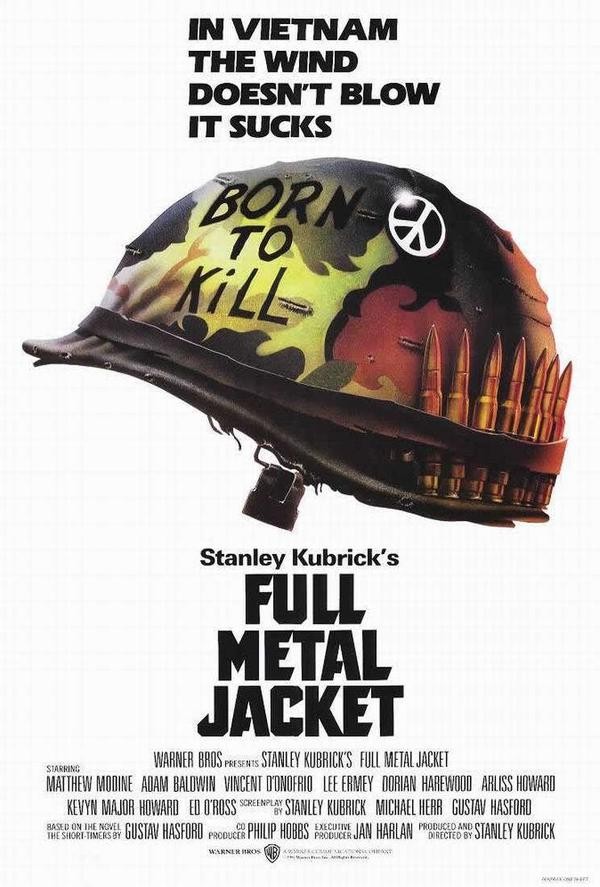
Full Metal Jacket Font
Fonts in UseFull Metal Jacket is a 1987 war film directed by Stanley Kubrick that follows a group of young Marine Corps recruits through their grueling training and eventual deployment to the Vietnam War.
The film's title on the poster appears to have been created with custom lettering, but a similar font that closely resembles it is Antilles, which is a display sans serif font available in multiple weights and was designed by Iconian Fonts. You can download it for free from the Fonts Used Section.